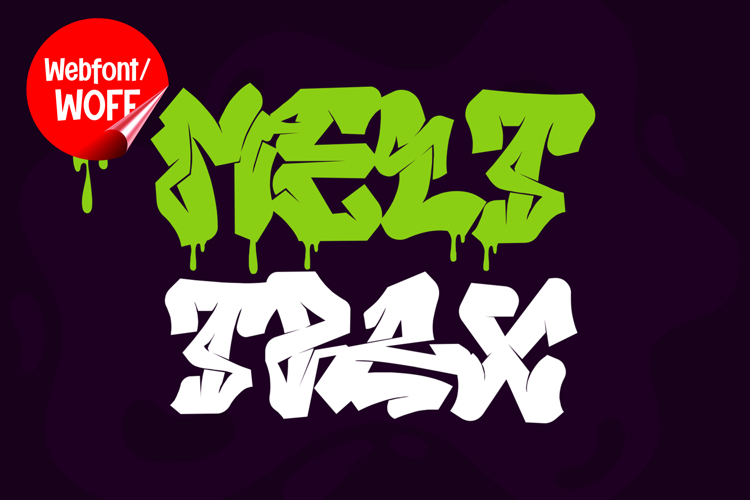
Melttrax | Wild Dripping Graffiti Webfont for Urban Street
Melttrax is a wild and dripping graffiti webfont designed to bring raw street-art energy and rebellious urban aesthetics into modern website design. Inspired by spray-paint drips, wildstyle graffiti murals, and underground tagging culture, this font features aggressive letterforms and fluid dripping details that create a bold and eye-catching visual identity. It is an excellent choice for projects that aim to deliver authentic graffiti visuals with strong urban character and high visual impact.
Melttrax includes a complete set of uppercase characters designed with wild dripping graffiti aesthetics. The letterforms feature exaggerated curves, energetic movement, and expressive drip effects that create a chaotic and rebellious street-art appearance inspired by urban wall murals and freestyle spray-paint lettering. These characteristics make it ideal for headlines, banners, hero sections, promotional graphics, and featured content where strong urban visuals are needed.
In addition to letters, the font includes numbers and punctuation, allowing flexible usage across various parts of a website. It works well for streetwear branding, gaming websites, music platforms, hip hop projects, esports graphics, and creative portfolios. Each character maintains a consistent dripping graffiti style, ensuring a cohesive and unified visual identity throughout the design.
With multilingual support, Melttrax includes a wide range of accented characters, making it suitable for international websites and global audiences. This ensures content remains clear and visually consistent across different languages while preserving the expressive and underground graffiti aesthetic.
The wild and dripping graffiti style of Melttrax makes it especially suitable for urban-themed websites, entertainment campaigns, youth-oriented branding, and creative digital projects. Its aggressive structure and flowing drip effects create a powerful street-art atmosphere that helps websites stand out in visually competitive environments. The graffiti-inspired forms add movement, intensity, and authentic underground character while maintaining a modern display style.
Despite its decorative and highly expressive appearance, Melttrax is designed with readability in mind. The spacing and proportions are carefully balanced to ensure clarity, particularly in display sizes. This allows designers to use the font effectively for impactful headings and short content without sacrificing usability.
Melttrax is a webfont that combines wild graffiti aesthetics with dripping street-art styling and modern digital performance. Its bold forms, expressive drip details, and urban character create a distinctive typographic presence that enhances website design. For projects that require a strong, rebellious, and visually engaging graffiti font, Melttrax offers a versatile and powerful solution.